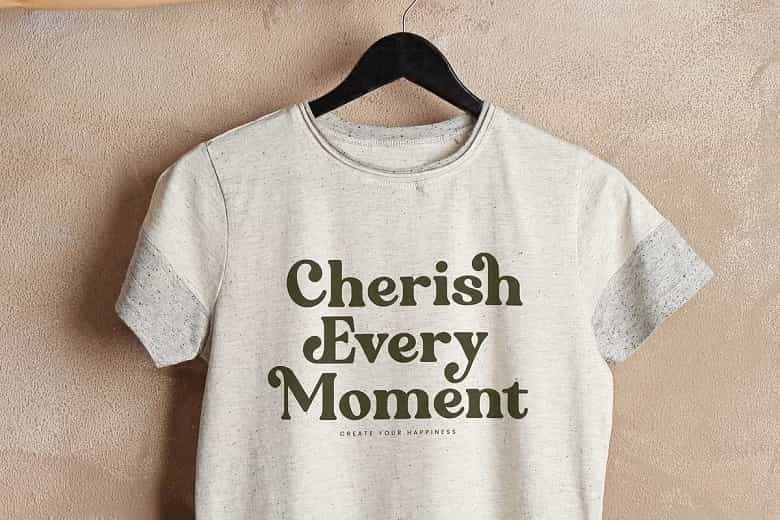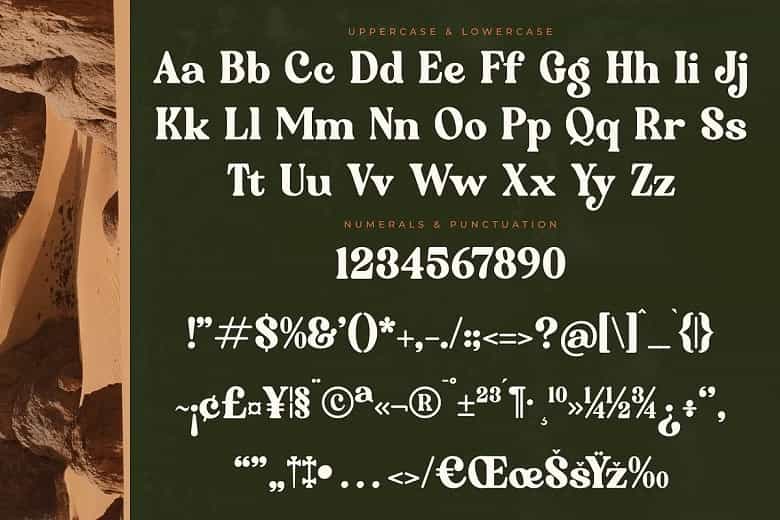
Majesty Regilast is a modern serif font which is created by the talented designer Timelesstype. Co, Suitable for any projects such as: logos, branding projects, homeware designs, quotes, posters, shopping bags, t-shirts, book covers, name card, invitation, greeting cards, label, special events, and all your other luxury and beautiful projects that need a luxury serif touch.